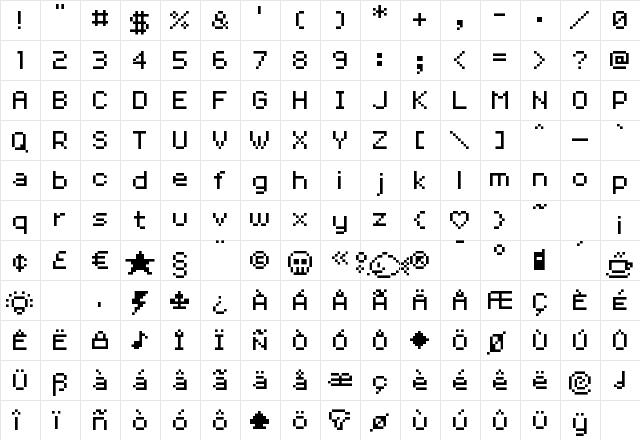
Volter (Goldfish) Regular
Design Context for Volter (Goldfish) Typeface
Volter (Goldfish) offers clean, dependable letterforms without strong stylistic allegiance, making it a practical choice for designers who need flexibility.